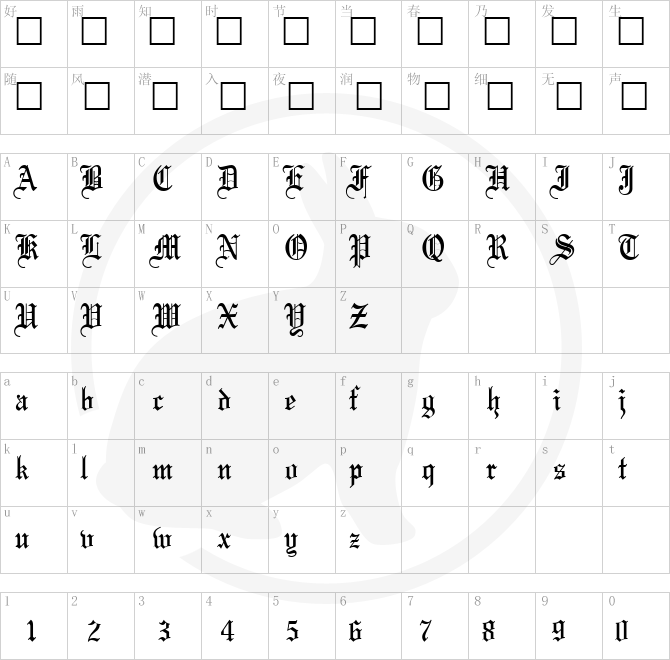
- Font Name:QTLinoscroll
QTLinoscroll-Regular.ttf is a very beautiful artistic font, QTLinoscroll-Regular.ttf is widely used in the design and printing of various books and pictures,QTLinoscroll-Regular.ttf has a strong visual impact,QTLinoscroll-Regular.ttf is a commonly used font in newspapers, magazines and books, and is used in posters, e-commerce Poster design, store design, logo design, font design and other fields.QTLinoscroll-Regular.